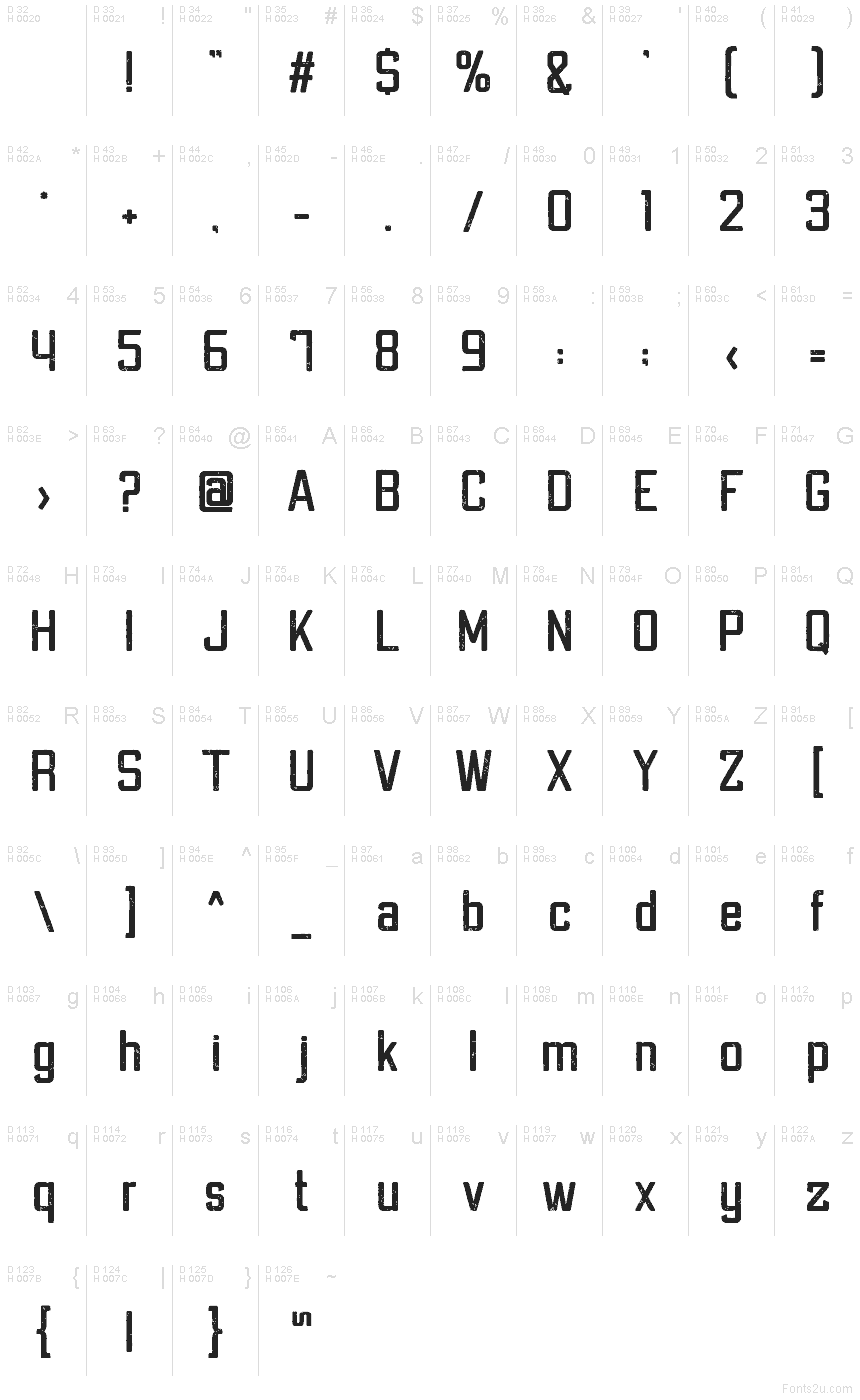
Molard Two
\nMolard Two font by PutraCetol Studio is a free condensed display typeface characterized by its eroded and industrial appearance. The font gives letters a worn-out effect with grunge texture and uneven density. Molard’s design perfectly combines clean original shapes, rugged edges, overall neatness, and visual imperfection.
Use Molard in branding, product packaging, book covers, posters, music album covers, flyers & brochures. Posters for an art museum or gallery exhibiting old mechanical equipment can also benefit from this typeface. This brilliant typeface would look astonishing in sci-fi novels where it is used on the cover or on the inner pages along with images.